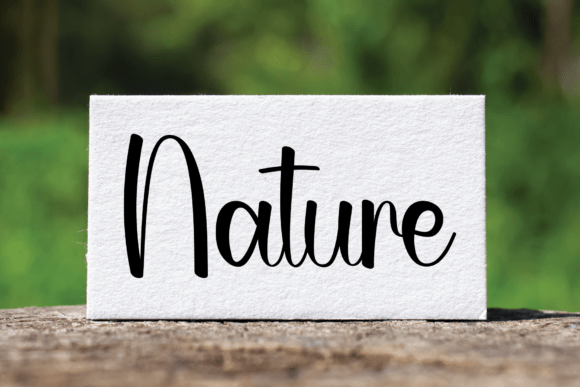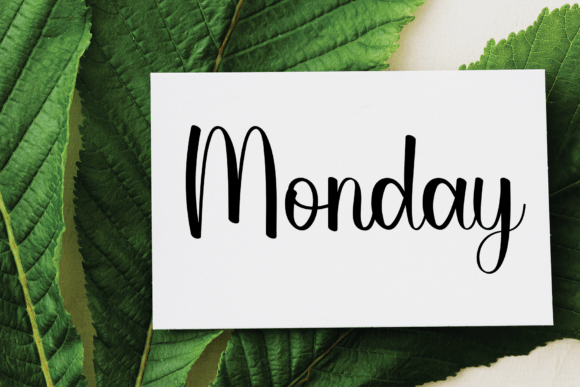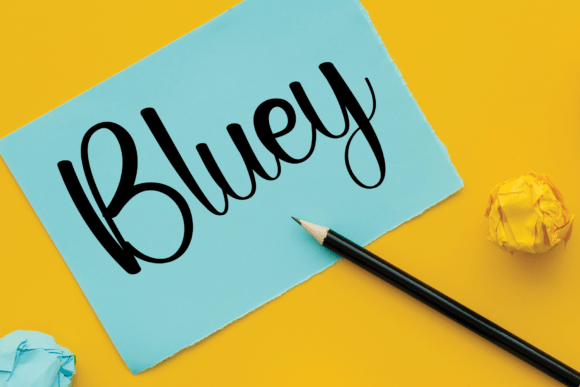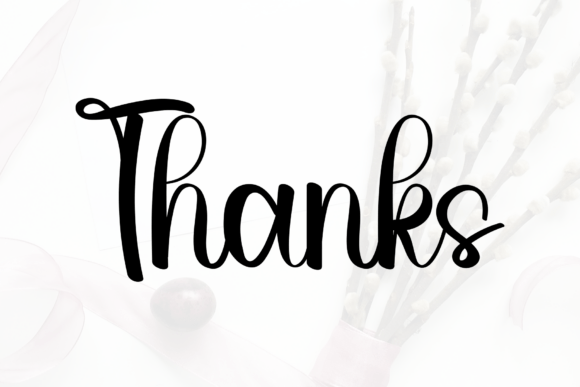
Introduction to Cute Wedding Font
Remember that magical moment when you stumbled upon the perfect font for your creative project? For many designers, that moment is a treasure trove of inspiration and excitement. It’s the moment when all the pieces fall into place, and your design starts to take shape. For me, that moment came when I discovered the enchanting Cute Wedding Font.
As a designer, finding the right font can make or break a project. It’s the icing on the cake, the cherry on top, or in this case, the delicate flourish that adds a touch of whimsy to your design. And that’s exactly what the Cute Wedding Font does – it adds a cozy, handwritten charm to any project, from wedding invitations to baby shower decorations.
Key Features of Cute Wedding Font
- High-quality design resource ideal for creative projects, such as wedding invitations, save-the-dates, and other special occasions.
- Includes a range of unique and cute characters, including swashes, flourishes, and special symbols, perfect for adding a personal touch to your design.
Honest Review: Cute Wedding Font
As a designer, I’m always on the lookout for high-quality design resources that can elevate my creative projects. Recently, I came across the Cute Wedding Font, and I’m excited to share my honest review.
What works well: ✨ The font is extremely versatile and can be used for a variety of wedding-related projects, from invitations to wedding websites. The design is elegant and sophisticated, making it perfect for a high-end wedding theme. The font is also highly customizable, allowing me to adjust the size, color, and style to fit my design needs.
- Easy to customize
- Perfect for wedding-related projects
Any limitations: ⚠️ The font only comes in a single style, which can be a limitation if you’re looking for a more extensive font family. Additionally, the font does not include a transparent background, which may not be ideal for designs that require a subtle background.
Overall, I’m impressed with the Cute Wedding Font. It’s a great addition to any designer’s toolkit, and I would highly recommend it for any creative project requiring a high-quality, elegant font.
Tips for Getting the Most Out of Cute Wedding Font
Use the font in conjunction with other design elements, such as images and graphics, to create a visually appealing design. Experiment with different font sizes and colors to add emphasis to your text. Use the font as a design resource for your creative project, such as a wedding invitation or a baby shower invitation.
Common Use Cases for Cute Wedding Font
The Cute Wedding Font is commonly used for wedding invitations, baby shower invitations, and other creative projects that require a playful and whimsical touch. It’s also a great design resource for bloggers and designers who need a high-quality font for their projects.